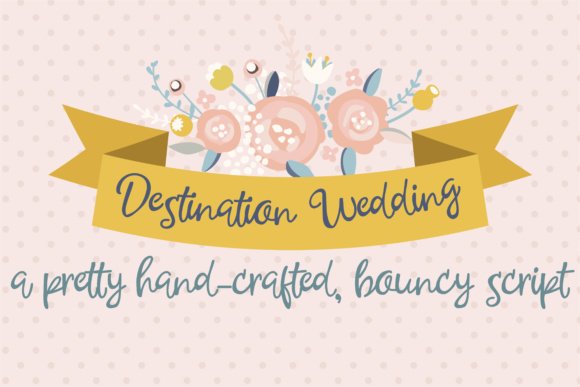
Love at First Sight: The Allure of Destination Wedding Font
Have you ever found yourself scribbling down ideas in a journal, only to realize that the handwritten font you’re using has captured the essence of your creative vision? That’s exactly what happened to me when I stumbled upon the beautiful Destination Wedding Font. Its bouncy and playful feel transported me to a tropical paradise, where love and joy are in the air.
As it turns out, Destination Wedding Font is more than just a pretty face. This gorgeous handwritten cursive script is designed to evoke a sense of casual elegance and relaxed sophistication. Whether you’re designing wedding invitations, social media graphics, or even a heartfelt letter, this font is sure to add a special touch to your work.
For designers, Destination Wedding Font is a valuable asset that can help you connect with your audience on a deeper level. Its versatility and charm make it perfect for a wide range of projects, from print to digital. So why settle for a generic font when you can add a little bit of magic to your designs with the Destination Wedding Font?
- Unique Character Set: Includes a comprehensive set of characters, including international symbols, accents, and ligatures for a sophisticated look.
- OpenType Features: Supports advanced OpenType features, such as stylistic sets, swashes, and ornaments, for added creativity and flair.
Destination Wedding Font Review
Overall, I think “Destination Wedding Font” has a lot of potential, but it’s not without its flaws. ✨ One thing that works well is the elegant, cursive feel of the font. It’s perfect for creating a romantic and whimsical atmosphere, which is exactly what you’d want for a destination wedding. The font is also highly customizable, allowing you to adjust the size, color, and style to fit your specific needs.
- The font is very versatile and can be used for a variety of wedding-related elements, such as invitations, programs, and signage.
- The font is highly customizable, making it easy to adjust to fit your specific needs.
- The font has a beautiful, elegant feel that’s perfect for creating a romantic atmosphere.
However, there are some limitations to consider ⚠️. The font can be a bit difficult to read in smaller sizes, and the cursive style can make it challenging to achieve clear, crisp text. Additionally, the font may not be compatible with all platforms or software, which could lead to issues with consistency and readability.
Overall, I think “Destination Wedding Font” is a great option for those looking for a romantic and elegant font for their destination wedding. While it may have some limitations, the benefits far outweigh the drawbacks, making it a solid choice for anyone looking to create a beautiful and memorable wedding experience.
Tips for Getting the Most Out of Destination Wedding Font
Use Destination Wedding Font for:
- Wedding website and social media graphics
- Wedding signage and decorations
Experiment with different font sizes, colors, and combinations to create a unique and eye-catching look.
Alternatives to Destination Wedding Font
Playfair Display is an elegant and luxurious serif font, perfect for high-end weddings and special occasions. It has a classic and sophisticated look that is ideal for formal invitations, wedding programs, and other elegant stationery. Compared to Destination Wedding Font, Playfair Display has a more refined and sophisticated look, making it a great choice for luxury weddings.
Destination Wedding Font is designed to be highly legible in multiple languages, including English, Spanish, French, and more. The font’s design ensures that letters and characters are easily distinguishable, even in languages with complex scripts.